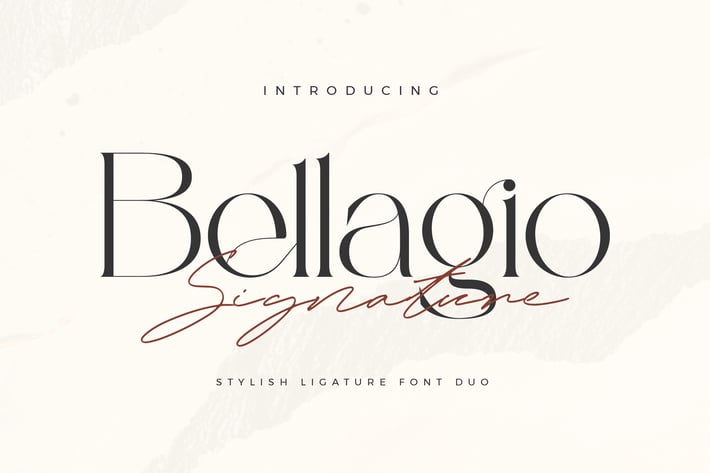
Bellagio Signature Font Duo
Aqeel-Art
Bellagio & Signature - Stylish Duo Ligature Typeface Display Serif inspired by the famous minimalist logo perfect for the purposes of designing templates, brochures, videos, advertising branding, logos and more.
- Standard glyphs
- International Accent